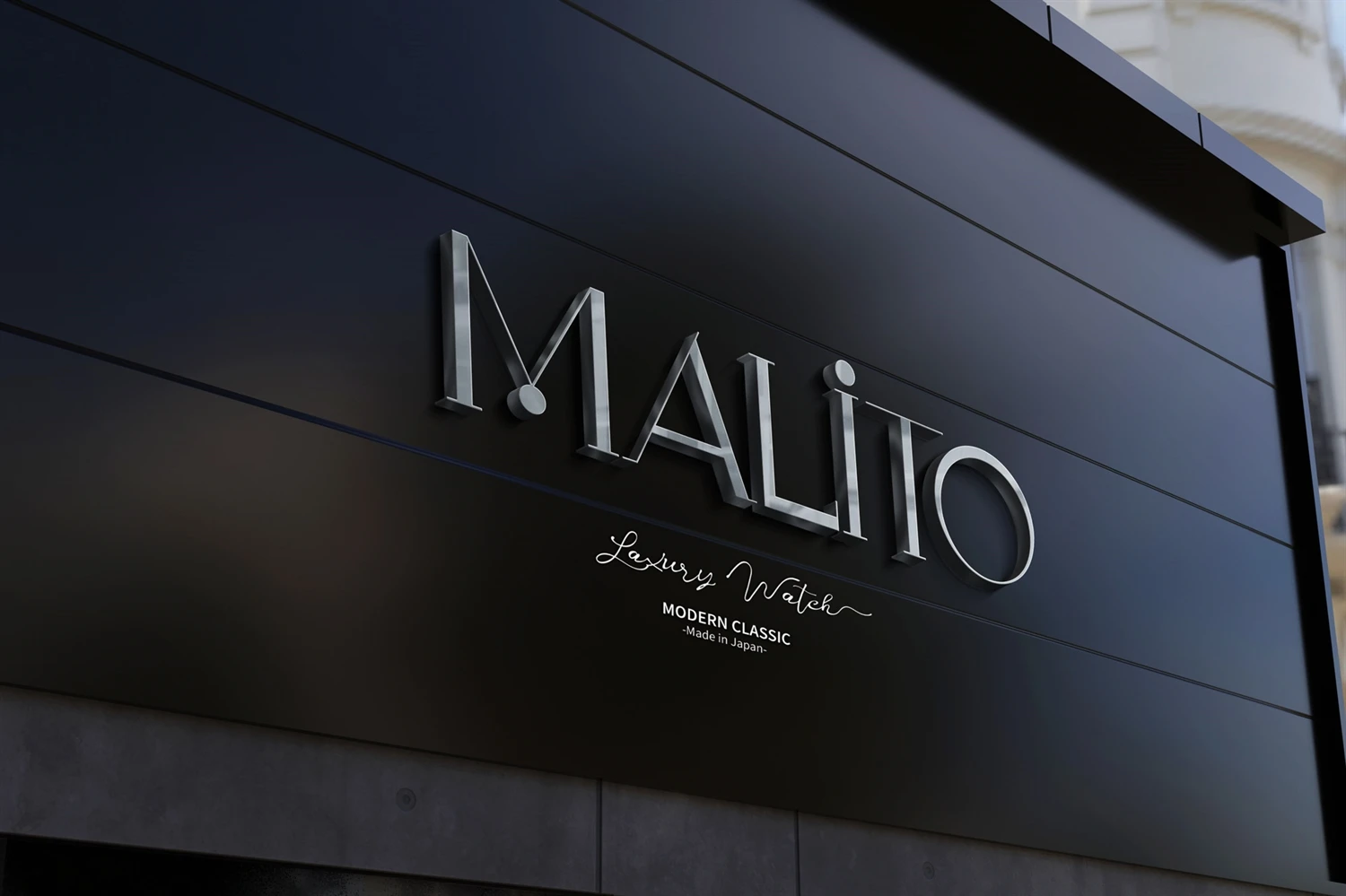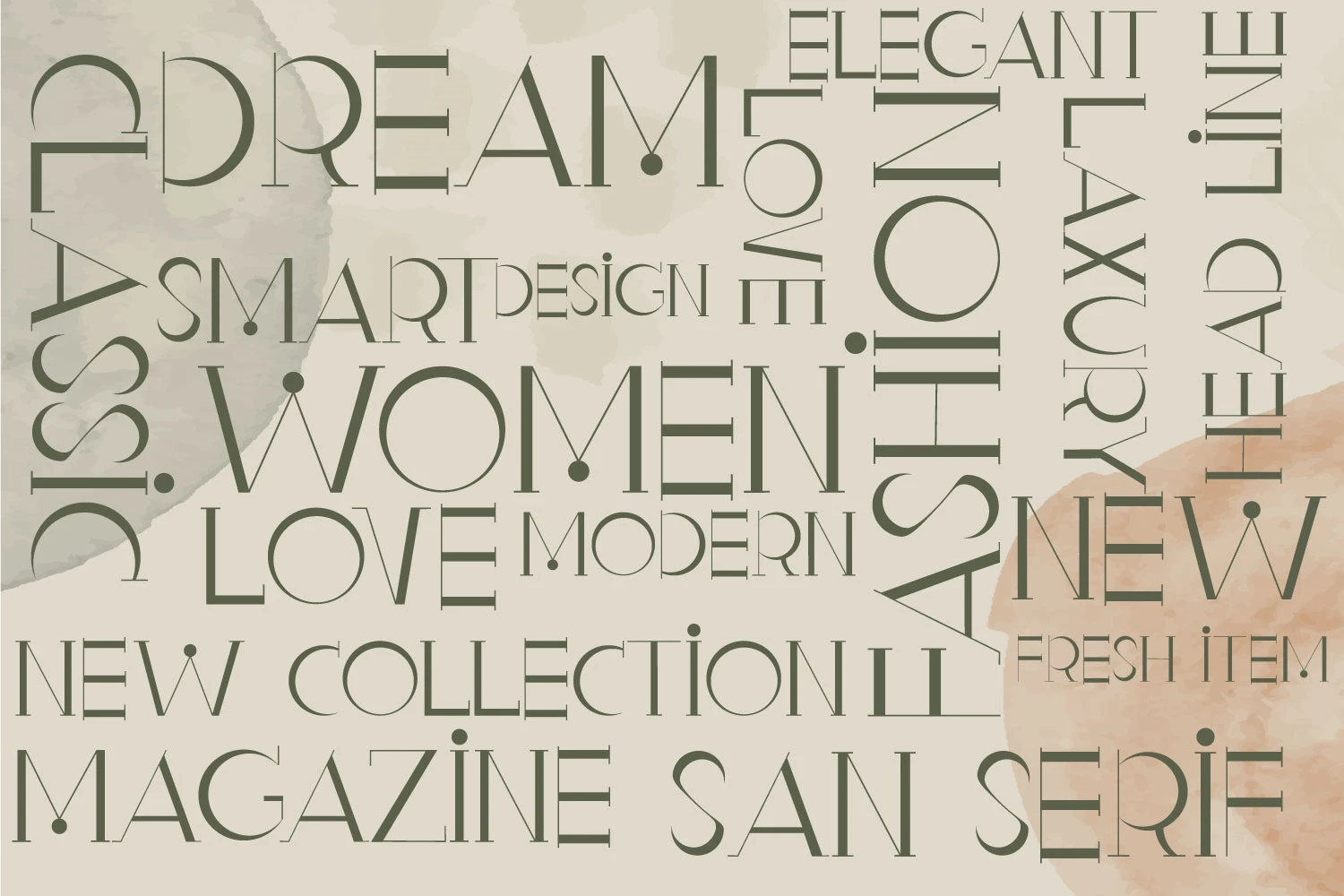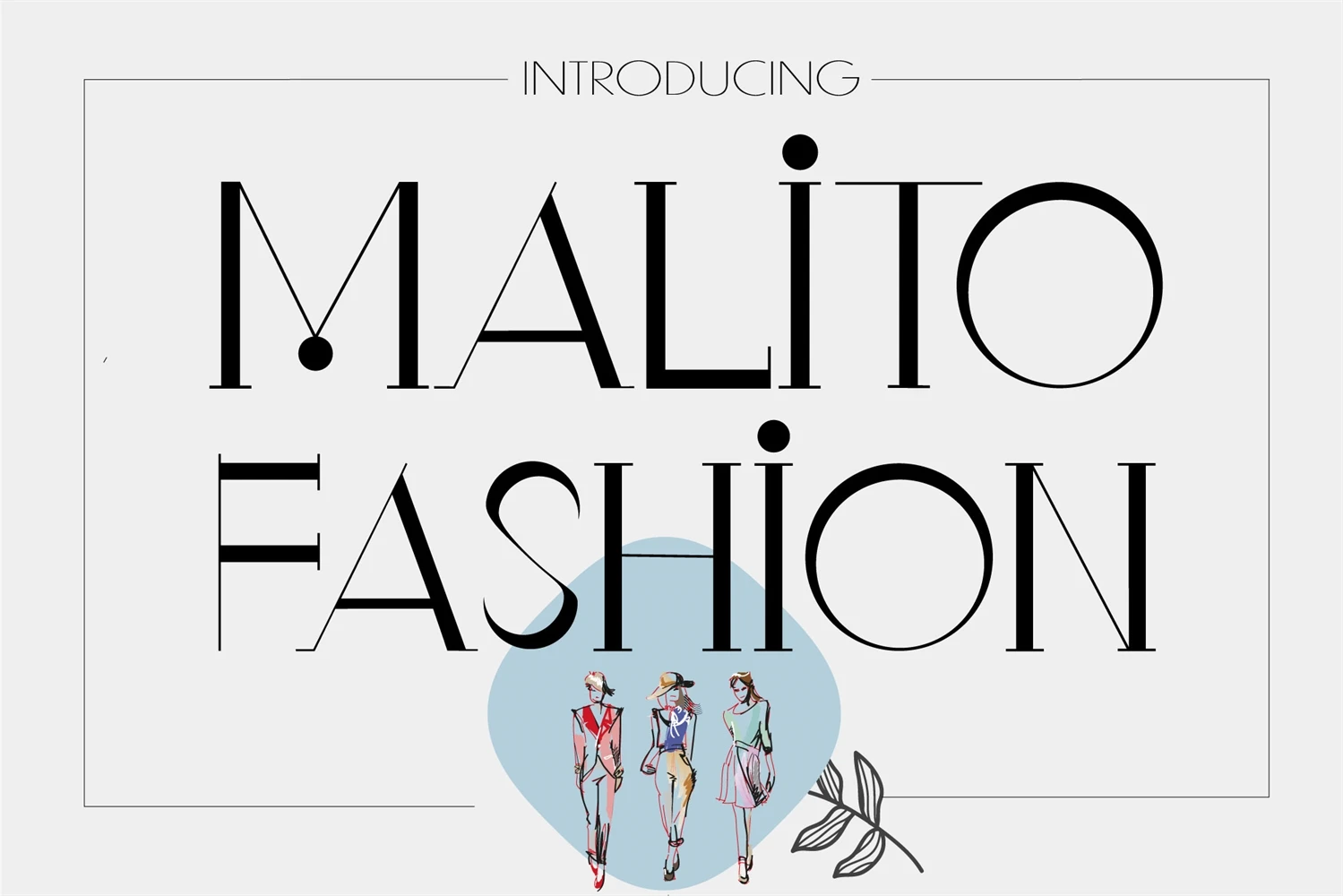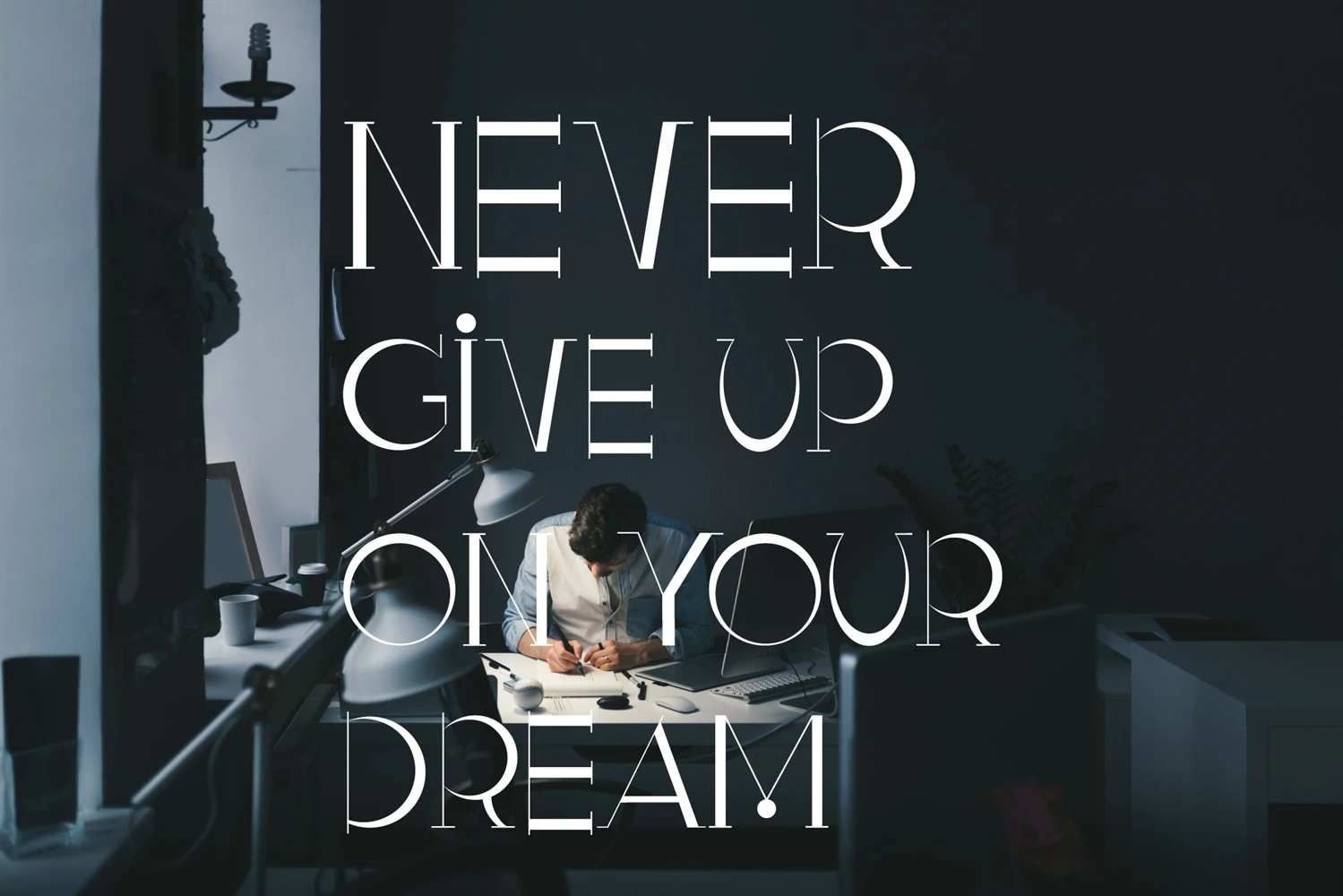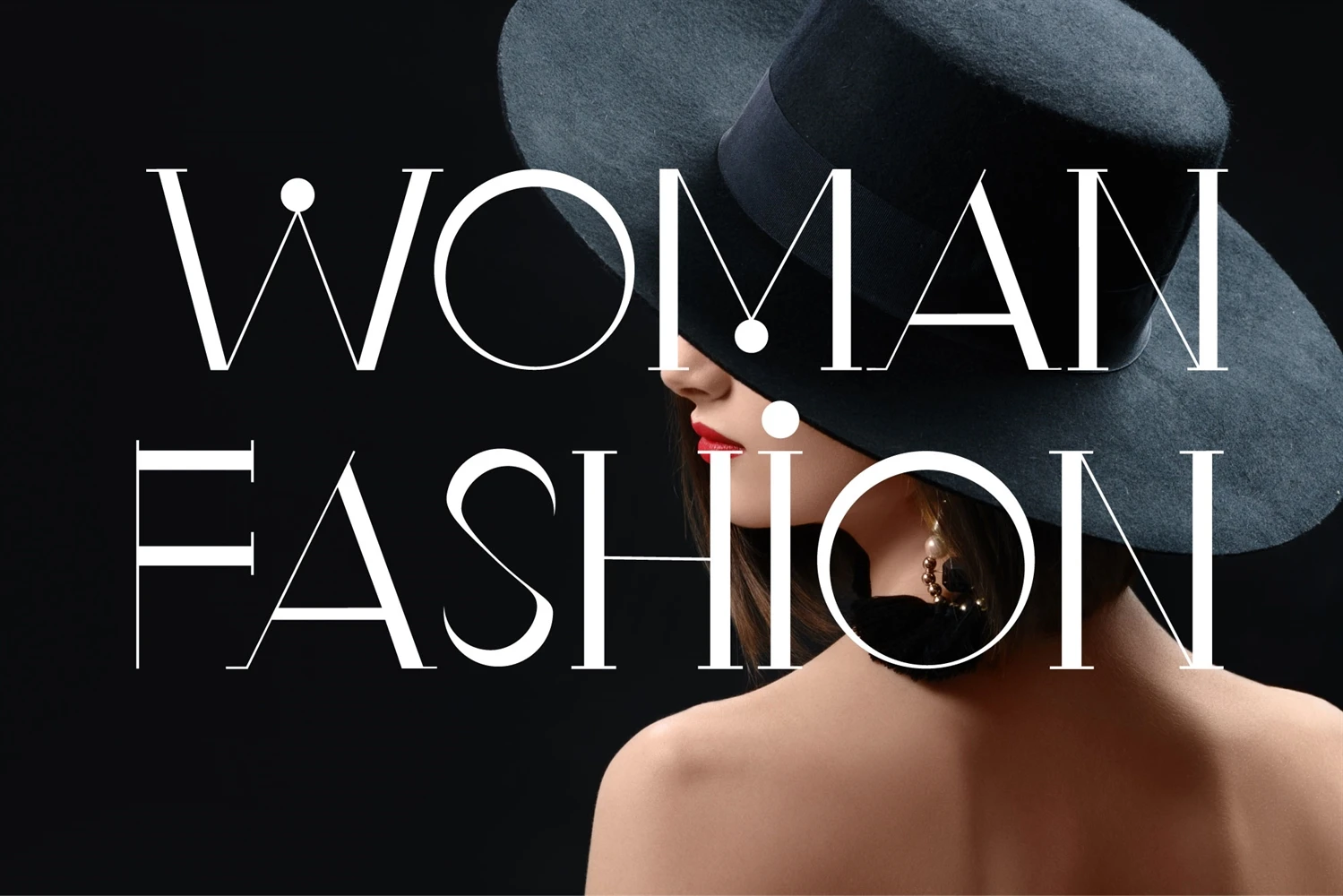
Malito Fashion is a sleek and elegant serif font designed for fashion and lifestyle brands, magazines, and editorial projects. With its clean lines, subtle curves, and distinctive serifs, Malito Fashion exudes sophistication and modernity. This versatile font is perfect for headlines, titles, subheadings, body text, and any other design element that requires a touch of refinement and style.